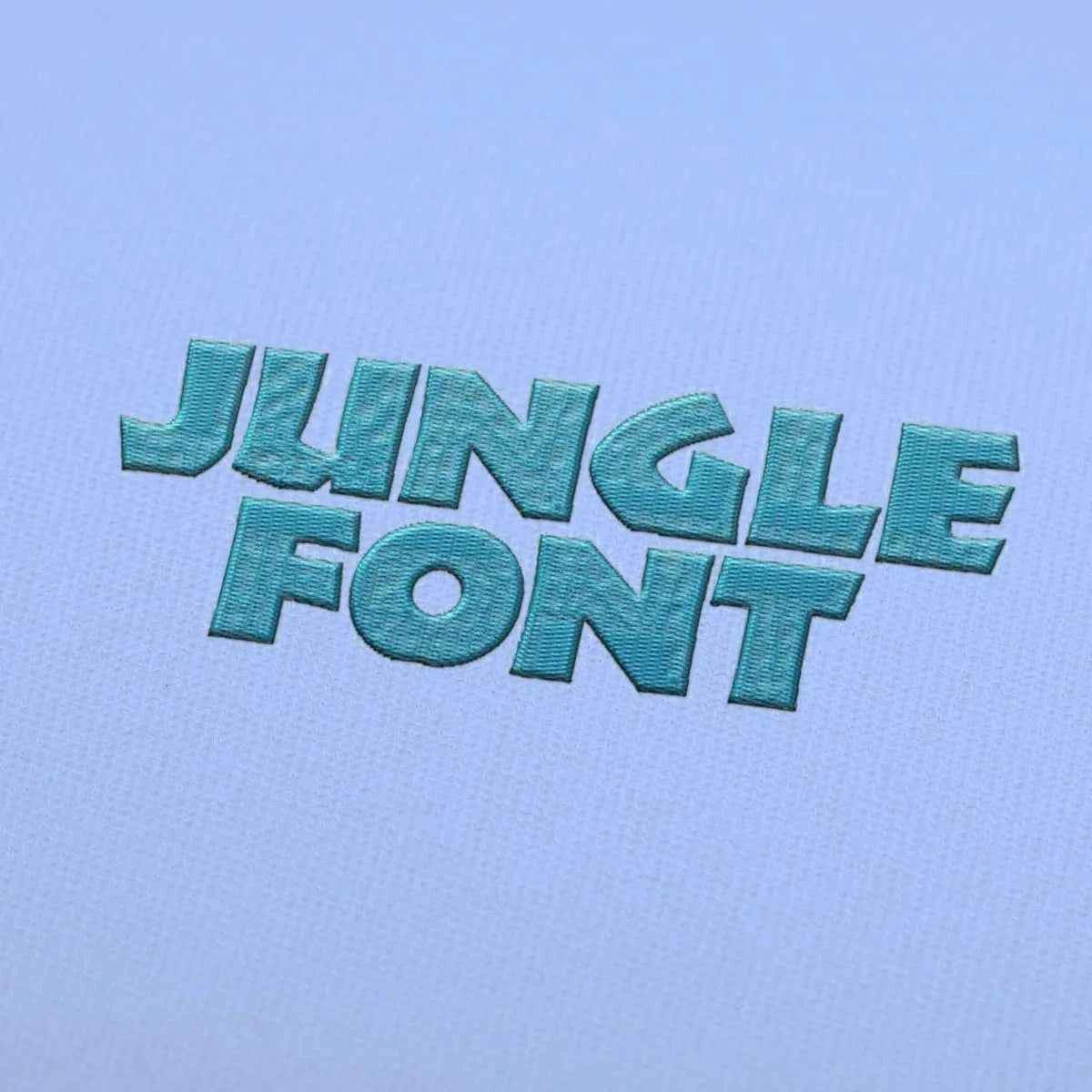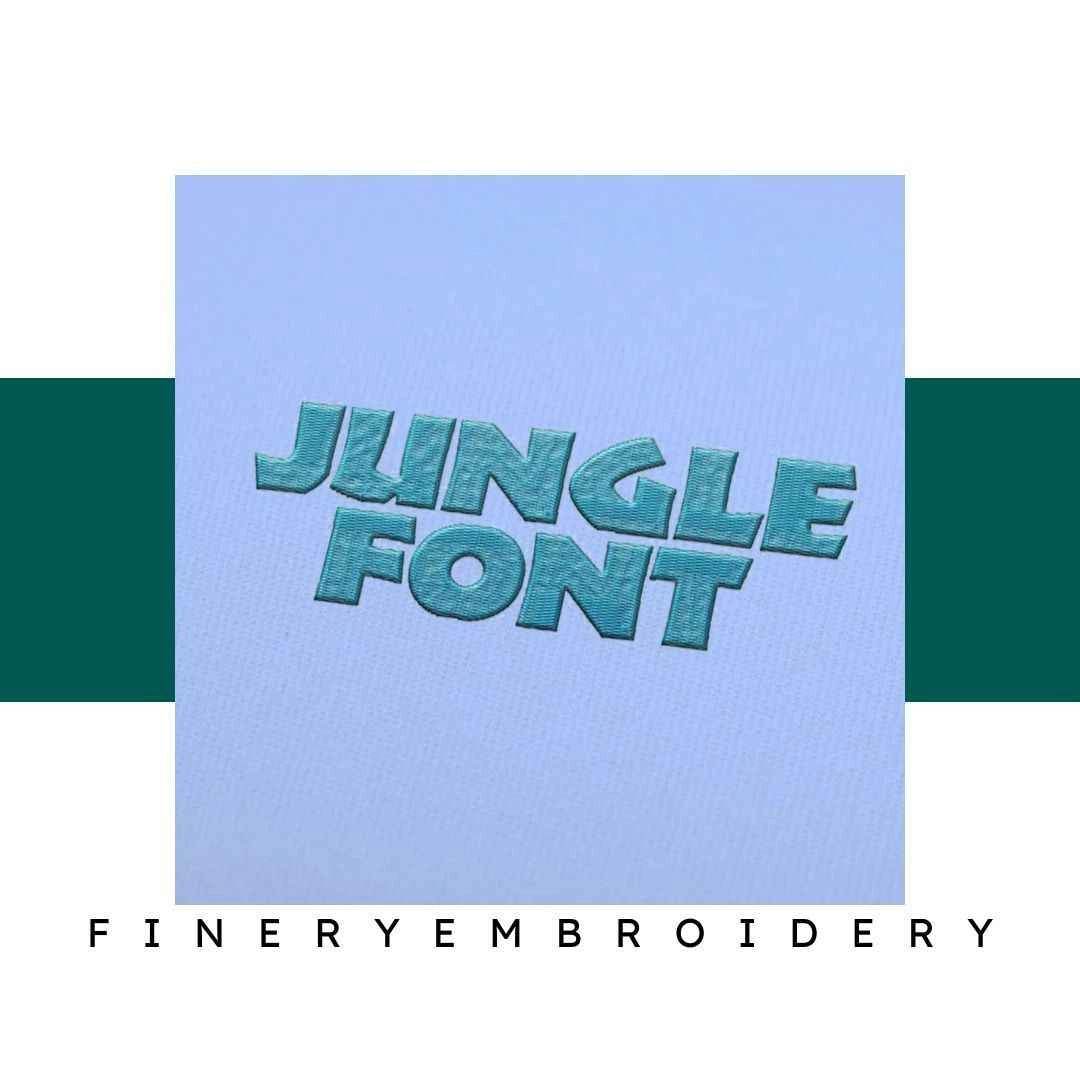
Unleash your creativity with the Jungle Embroidery Alphabet Font Set, where every letter tells a story of adventure and elegance!
Introducing the Jungle Embroidery Alphabet Font Set—a treasure trove of exquisite designs perfect for any embroidery enthusiast! This alphabet set is not just about letters; it’s about bringing your imaginative projects to life. Whether you're personalizing garments or enhancing home décor, the Jungle Font Set will elevate your creations to a whole new level of sophistication.
This font set features elegant and high-quality designs, making it a must-have for anyone looking to add flair to their embroidery. Each character is crafted with meticulous attention to detail, ensuring that your final pieces look professional and polished. Plus, the versatility in sizing allows you to choose the perfect dimensions for every project.
Imagine adorning your favorite tote bags, creating personalized gifts, or even decorating nursery items with such unique lettering! The Jungle Embroidery Alphabet Font Set opens up a world of possibilities for customization. With sizes ranging from 3"x3" to 6"x6", you can seamlessly integrate these designs into any fabric, making your embroidery projects truly stand out.
Unleash your creativity with the Jungle Embroidery Alphabet Font Set, where every letter tells a story of adventure and elegance!
Introducing the Jungle Embroidery Alphabet Font Set—a treasure trove of exquisite designs perfect for any embroidery enthusiast! This alphabet set is not just about letters; it’s about bringing your imaginative projects to life. Whether you're personalizing garments or enhancing home décor, the Jungle Font Set will elevate your creations to a whole new level of sophistication.
This font set features elegant and high-quality designs, making it a must-have for anyone looking to add flair to their embroidery. Each character is crafted with meticulous attention to detail, ensuring that your final pieces look professional and polished. Plus, the versatility in sizing allows you to choose the perfect dimensions for every project.
Imagine adorning your favorite tote bags, creating personalized gifts, or even decorating nursery items with such unique lettering! The Jungle Embroidery Alphabet Font Set opens up a world of possibilities for customization. With sizes ranging from 3"x3" to 6"x6", you can seamlessly integrate these designs into any fabric, making your embroidery projects truly stand out.